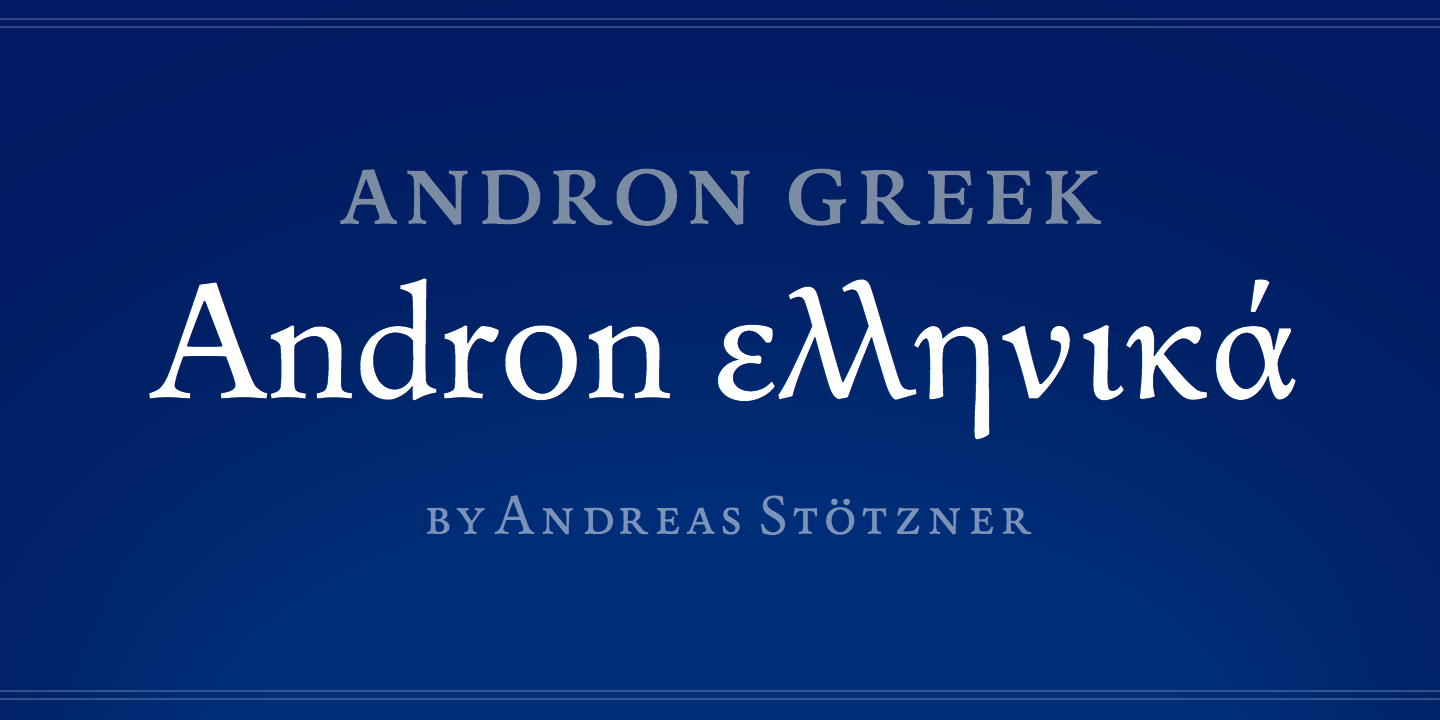
Andron 1 Greek Corpus Font is perfect for classical Greek texts, ancient literature publications, academic Greek studies, scholarly philological research, historical manuscript reproductions, university Greek departments, theological seminary materials, archaeological documentation, Byzantine studies publications, and scholarly Greek corpus applications. This scholarly typeface creates authentic classical atmosphere in both academic print and digital scholarly platforms.
What makes Andron 1 Greek Corpus Font exciting is its meticulous scholarly design that perfectly captures ancient Greek textual traditions with authentic paleographic accuracy and academic excellence. The font features classical Greek letterforms with manuscript proportions and scholarly character details that honor centuries of Greek scribal tradition while ensuring modern academic readability. Its scholarly design establishes an atmosphere of academic authority and classical authenticity that resonates with Greek scholars seeking genuine philological precision and textual accuracy.
Andron 1 Greek Corpus Font family includes scholarly variations: Regular, Bold, Italic, and Manuscript versions, each with classical Greek alternates and paleographic character sets. Each variant maintains the font's scholarly integrity while providing classicists with authentic options for creating academic typography systems and scholarly communication materials.
This exceptional classical typeface brings authentic academic credibility to projects requiring scholarly presentation. Whether you're designing Greek academic publications, classical studies materials, or philological research content, Andron 1 Greek Corpus Font Free Download delivers outstanding authenticity and scholarly sophistication. The font's classical proportions and academic details ensure memorable scholarly connection across various Greek studies applications.
Universities and classical studies departments recognize how Andron 1 Greek Corpus Font perfectly embodies the principles of Greek paleography and scholarly textual accuracy. Its academic foundation combined with classical authenticity makes it essential for Greek studies and classical scholarship projects. Download today and classically authenticate your designs with this exceptionally scholarly Greek typography.